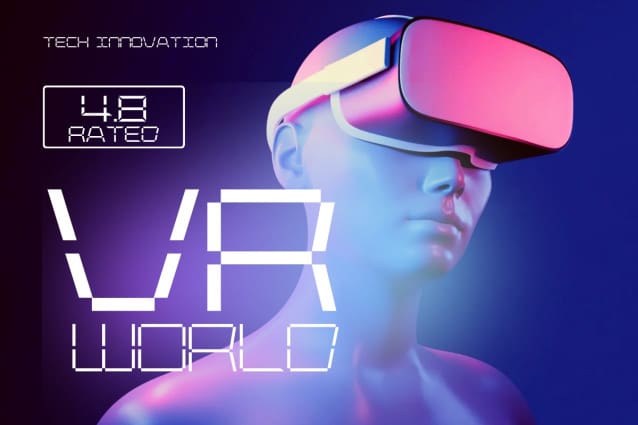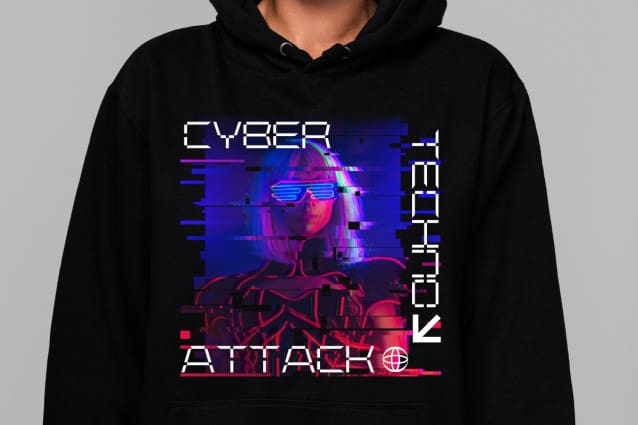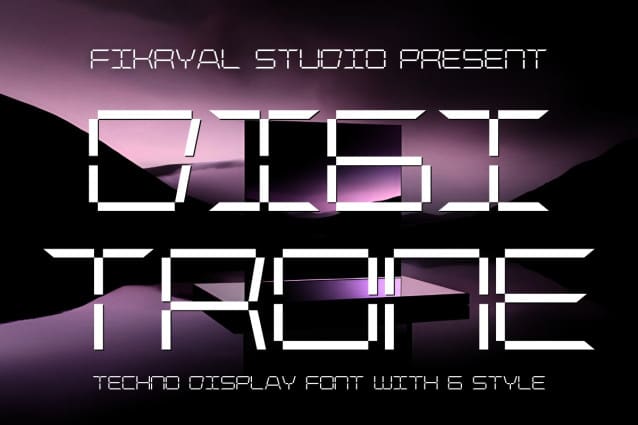
Digitrone Futuristic Font
Digitrone Futuristic Font is a futuristic all-caps display font designed for a high-tech and modern aesthetic. Featuring sharp, geometric, and precise letterforms, this font is perfect for sci-fi, cyberpunk, technology, gaming, and modern branding projects.
Digitrone Futuristic provides versatility for various design needs, from headlines, logos, UI/UX interfaces, futuristic posters, and digital projects. The italic and bold styles add dynamic contrast, making it an excellent choice for designers looking to create a sleek and cutting-edge look.